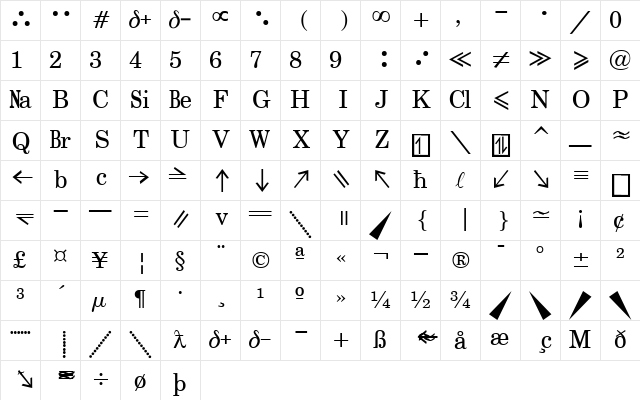
Complete 1Lanz Chemistry Regular glyph index. Displaying only characters natively supported by 1Lanz Chemistry Regular font.
1Lanz Chemistry is a composed and adaptable typeface that performs quietly and consistently across a wide range of design contexts.